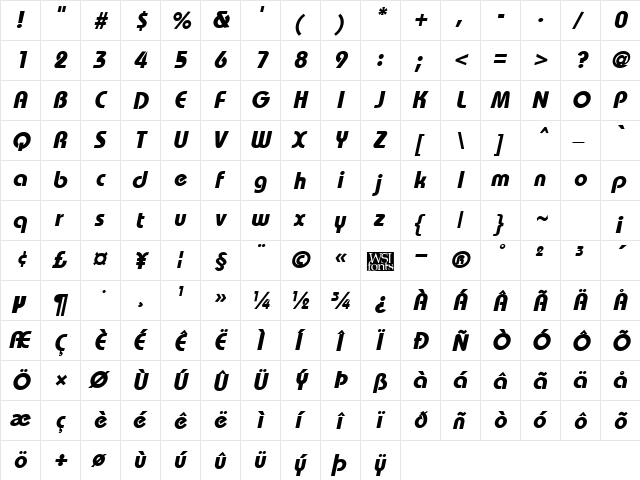
BordeauxHeavy Italic Font Preview
BordeauxHeavy Italic
BordeauxHeavy Italic Font Details
Design Context for BordeauxHeavy Typeface
BordeauxHeavy takes a measured approach to typography — its balanced proportions and neutral character make it a reliable workhorse for both digital and print work. Its italic angle brings a sense of urgency and motion to the letterforms.